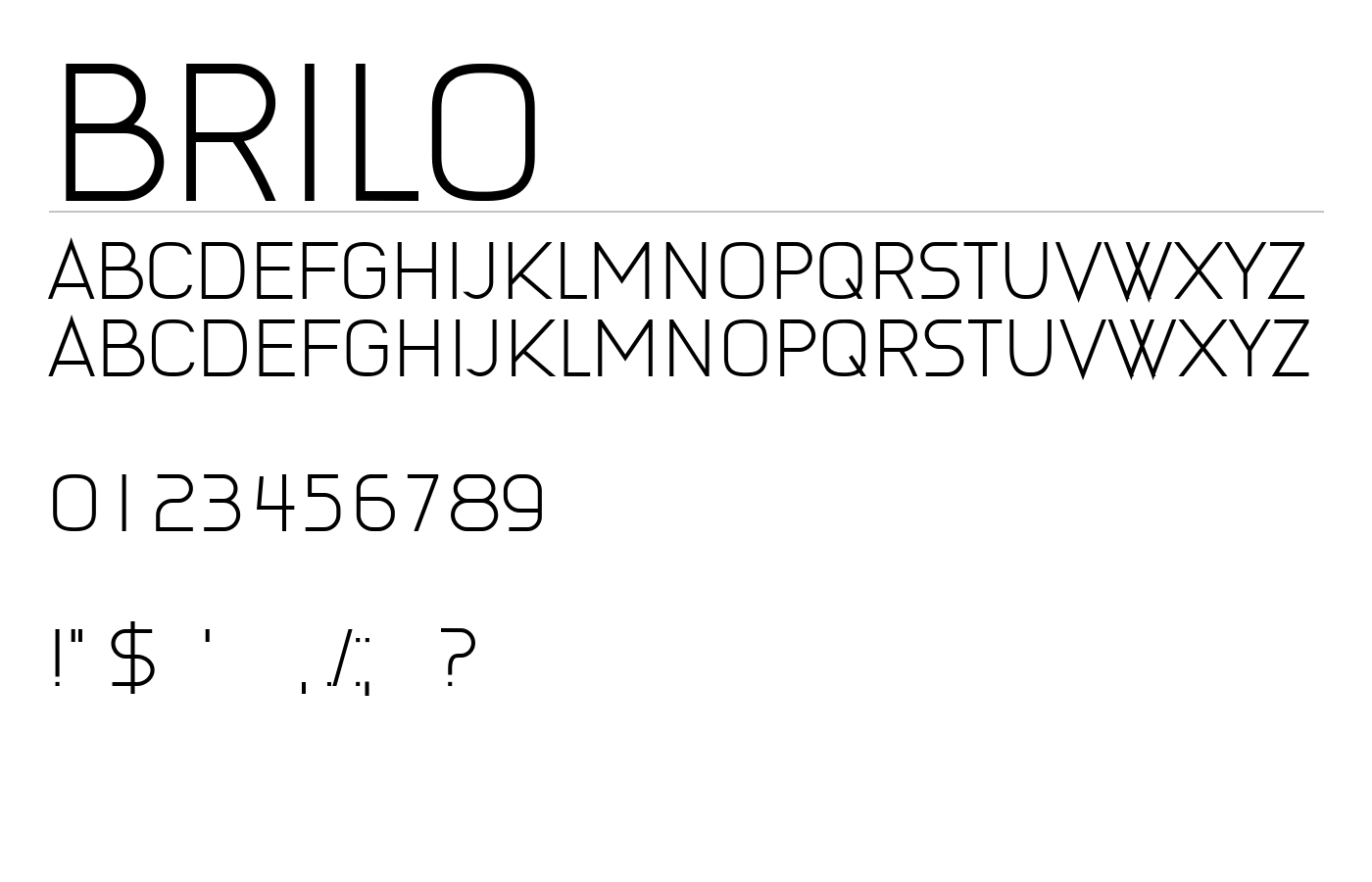
Brilo is a sleek, modern sans serif font characterized by its clean, geometric lines and thin stroke weight, giving it an airy and minimalist look. Its tall x-height and rounded corners create a friendly yet professional appearance that works well for contemporary branding, tech startups, and editorial headlines seeking a futuristic but approachable vibe. This font’s clarity and elegance make it ideal for logos, websites, and any design aiming for a fresh, stylish impression.
Brilo Font
About Brilo Font
| Font family | Brilo Font |